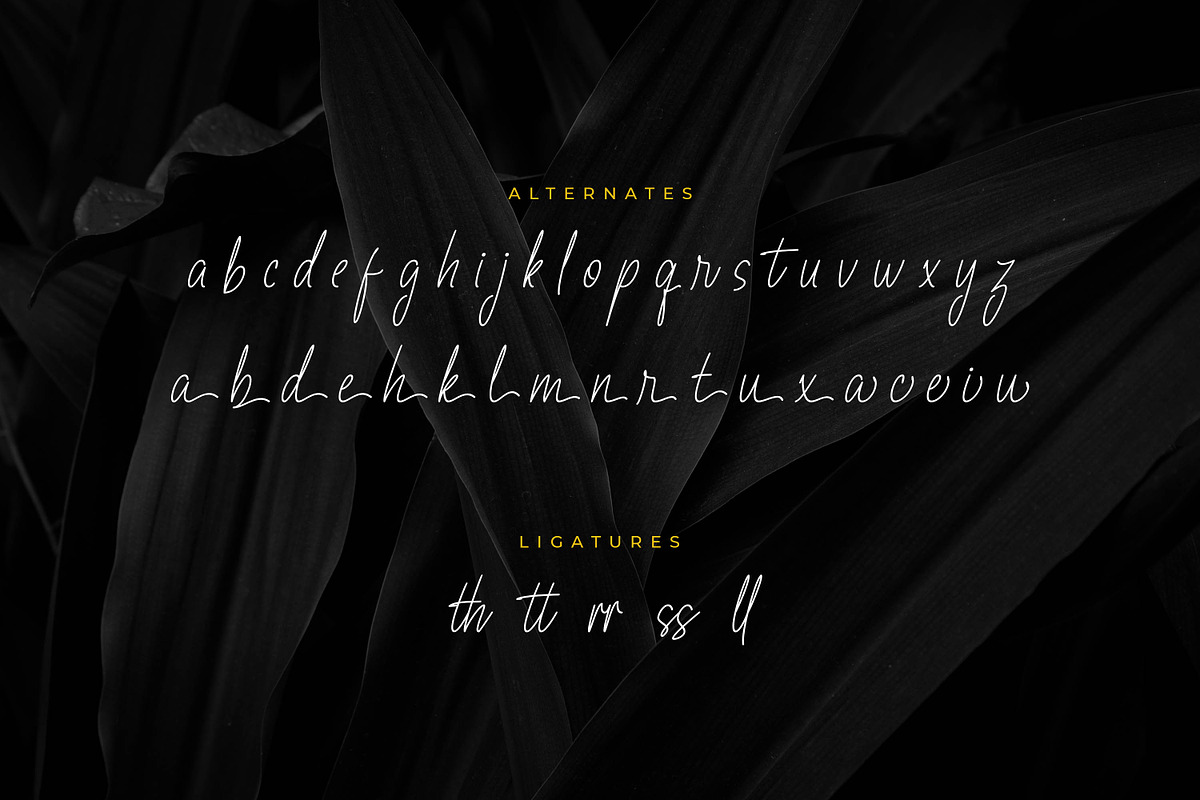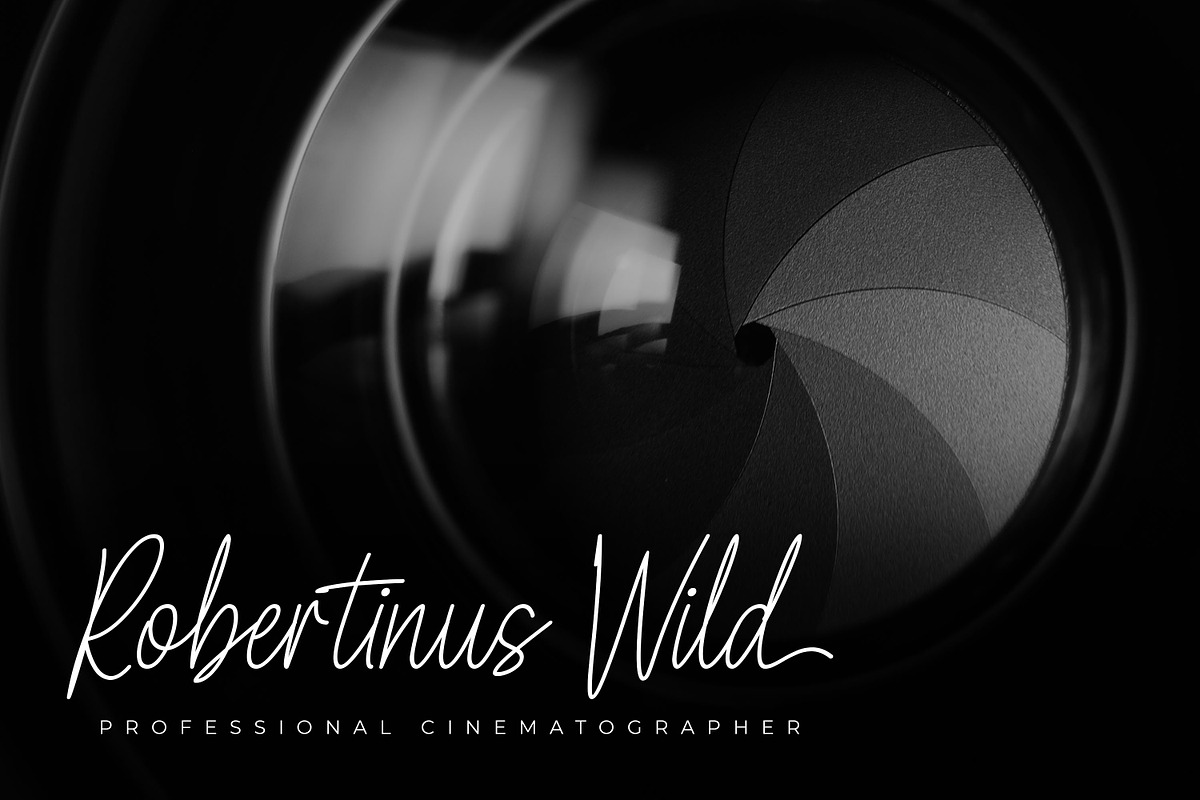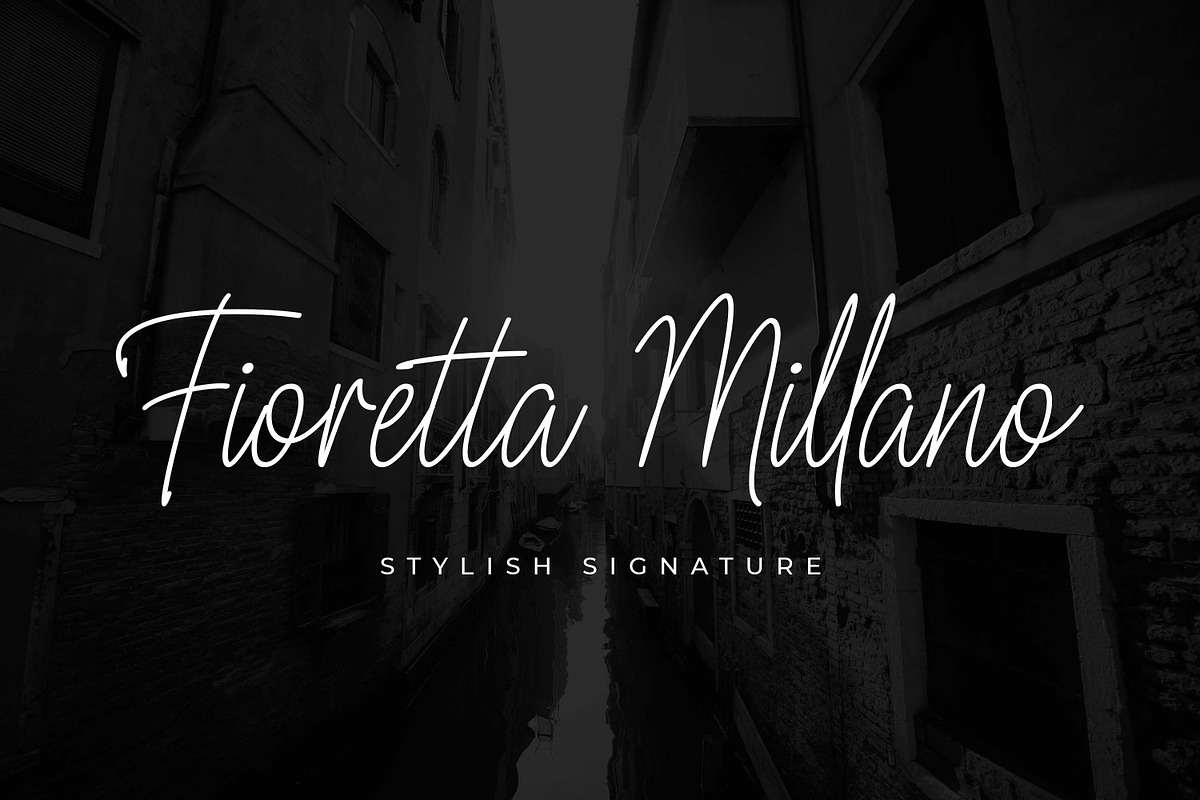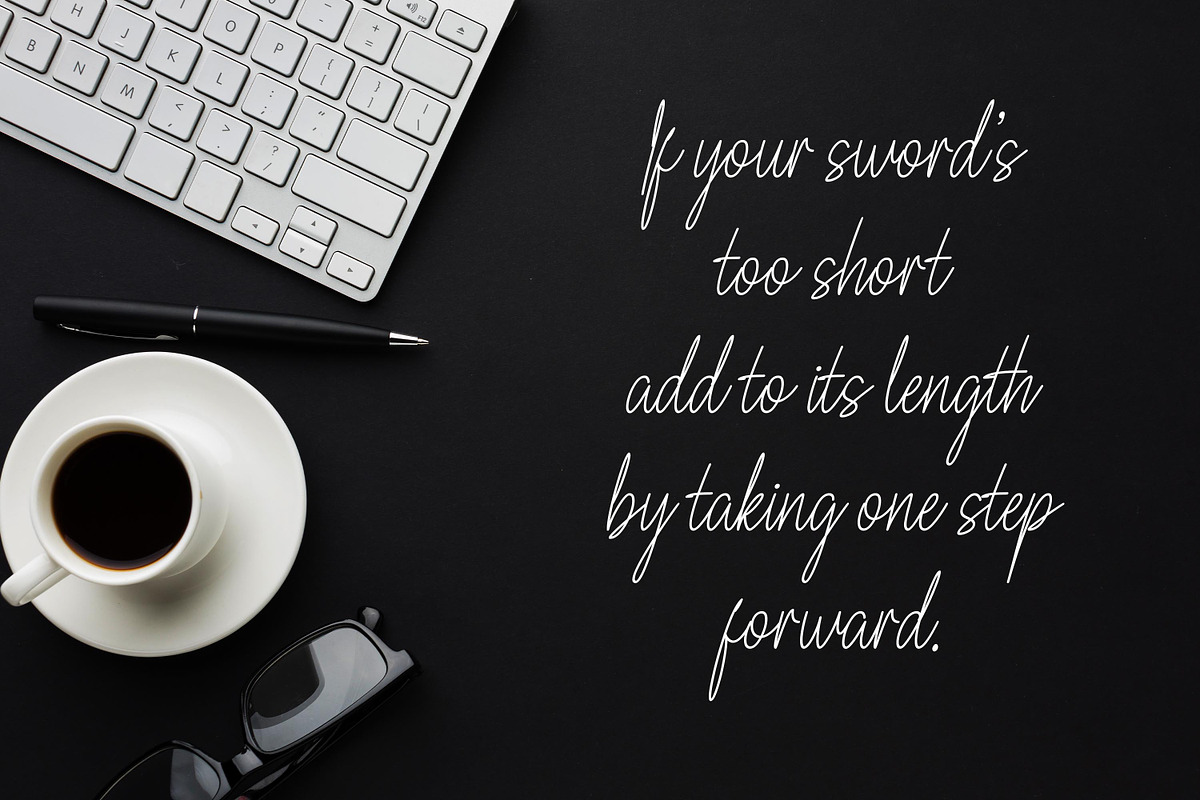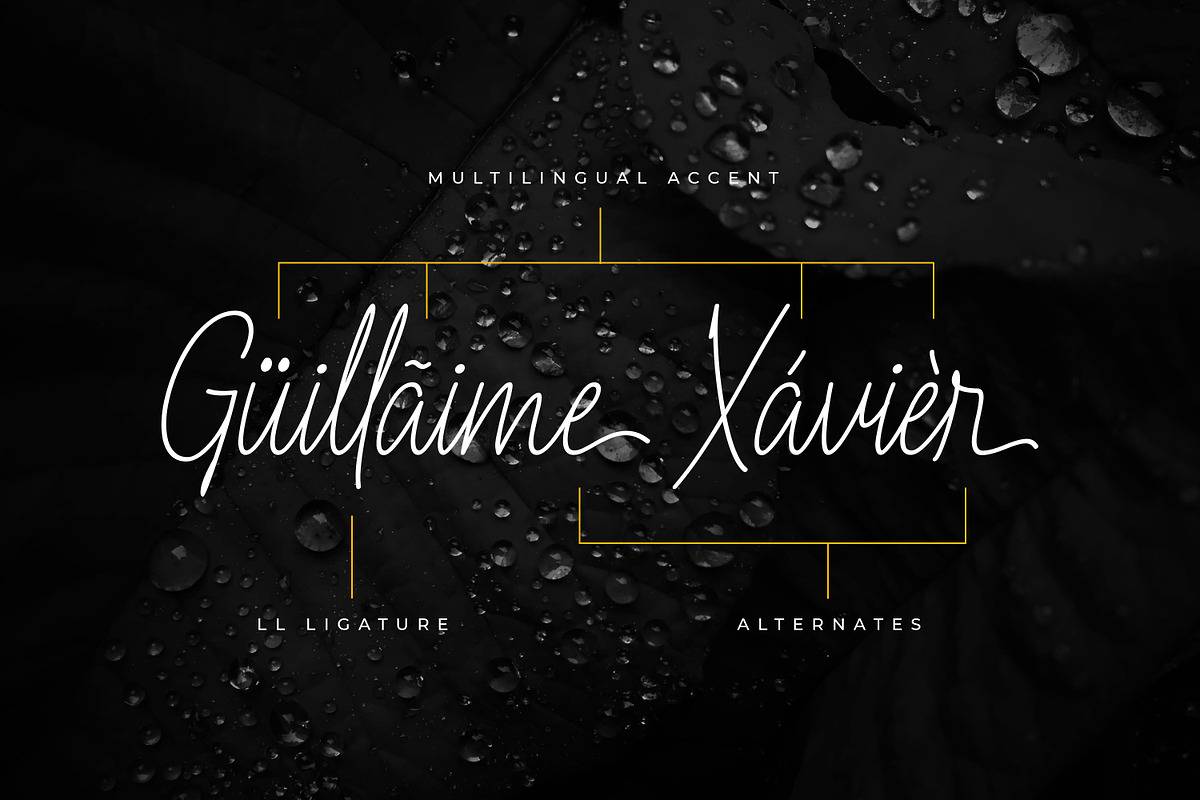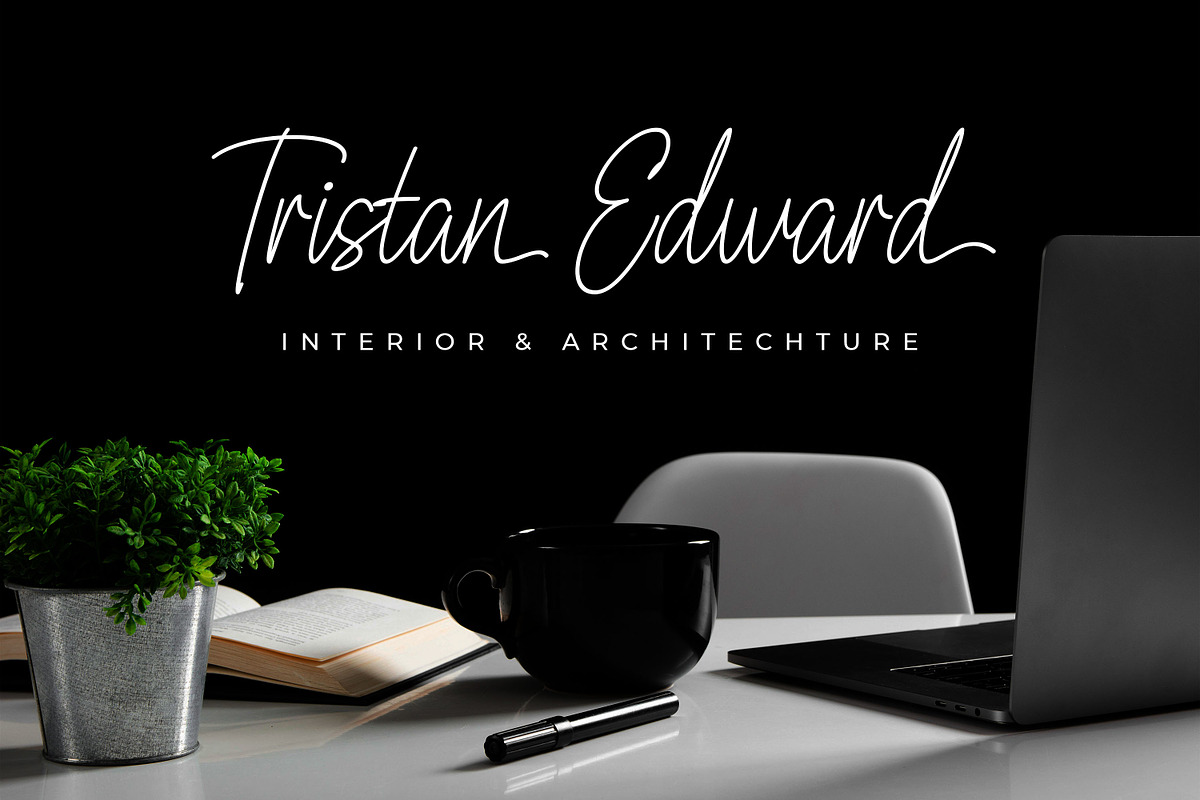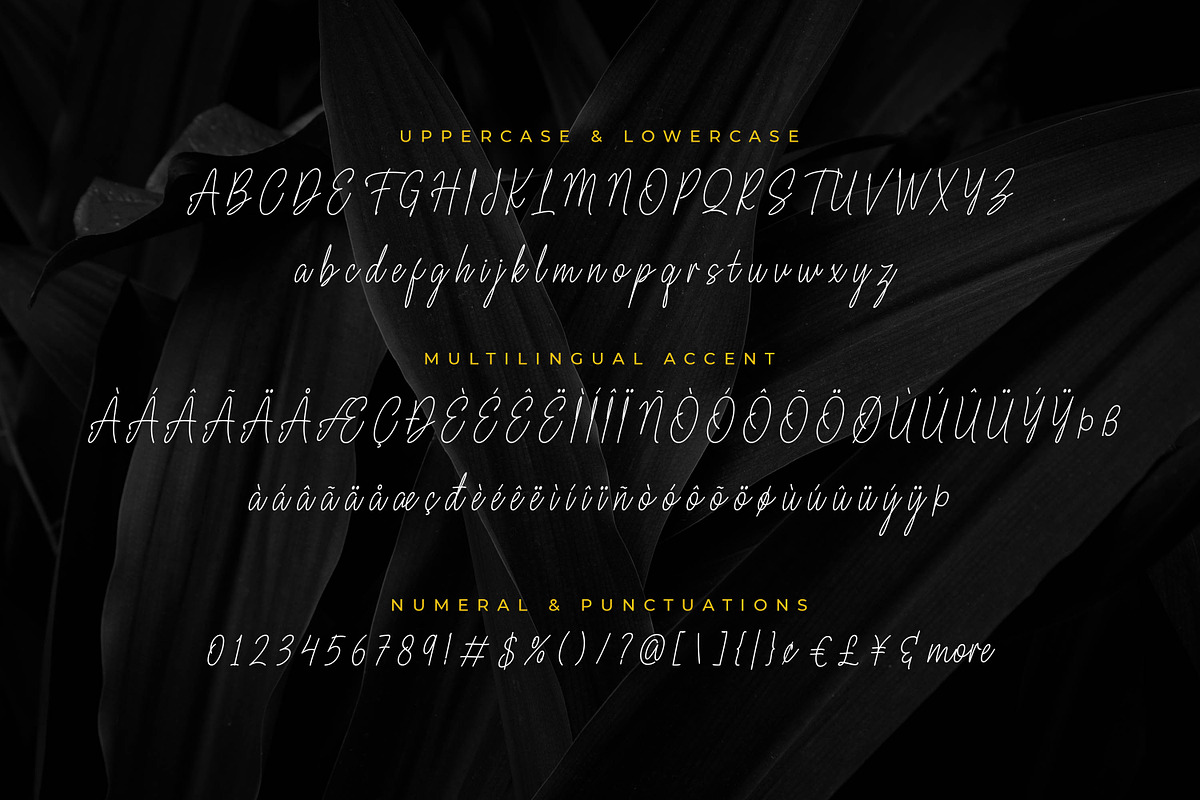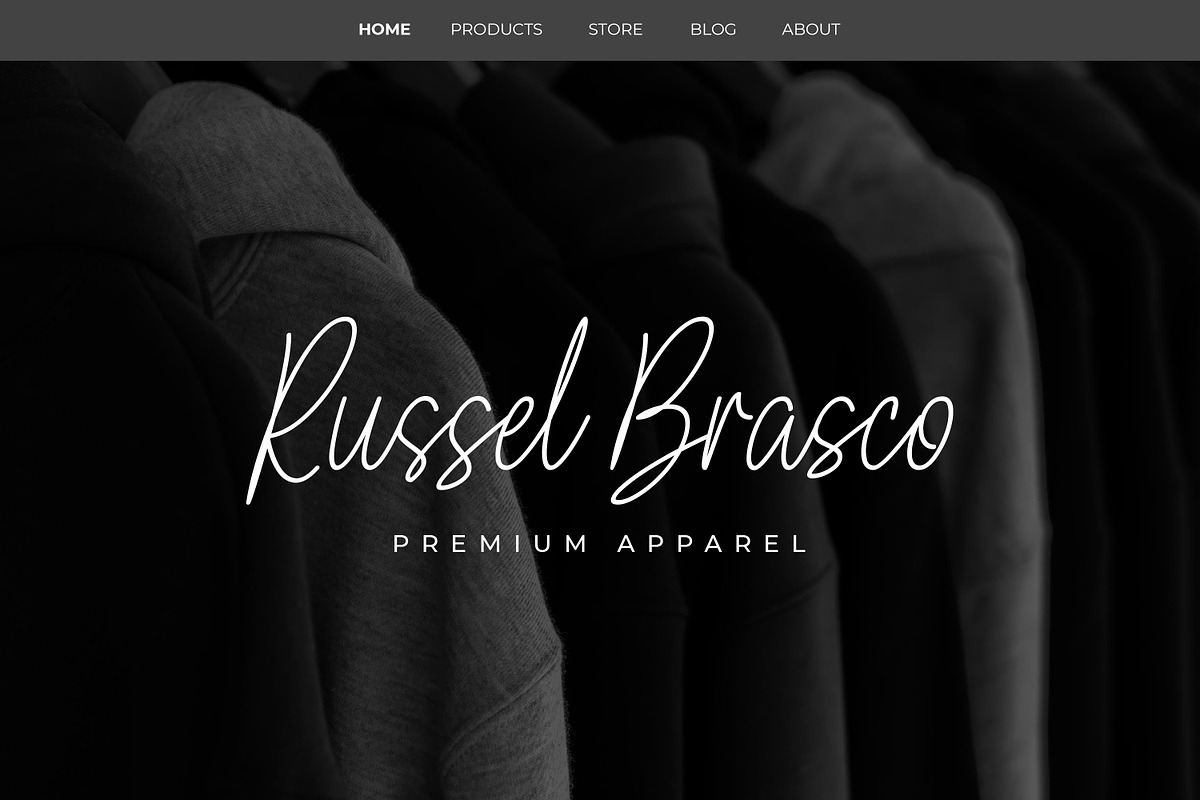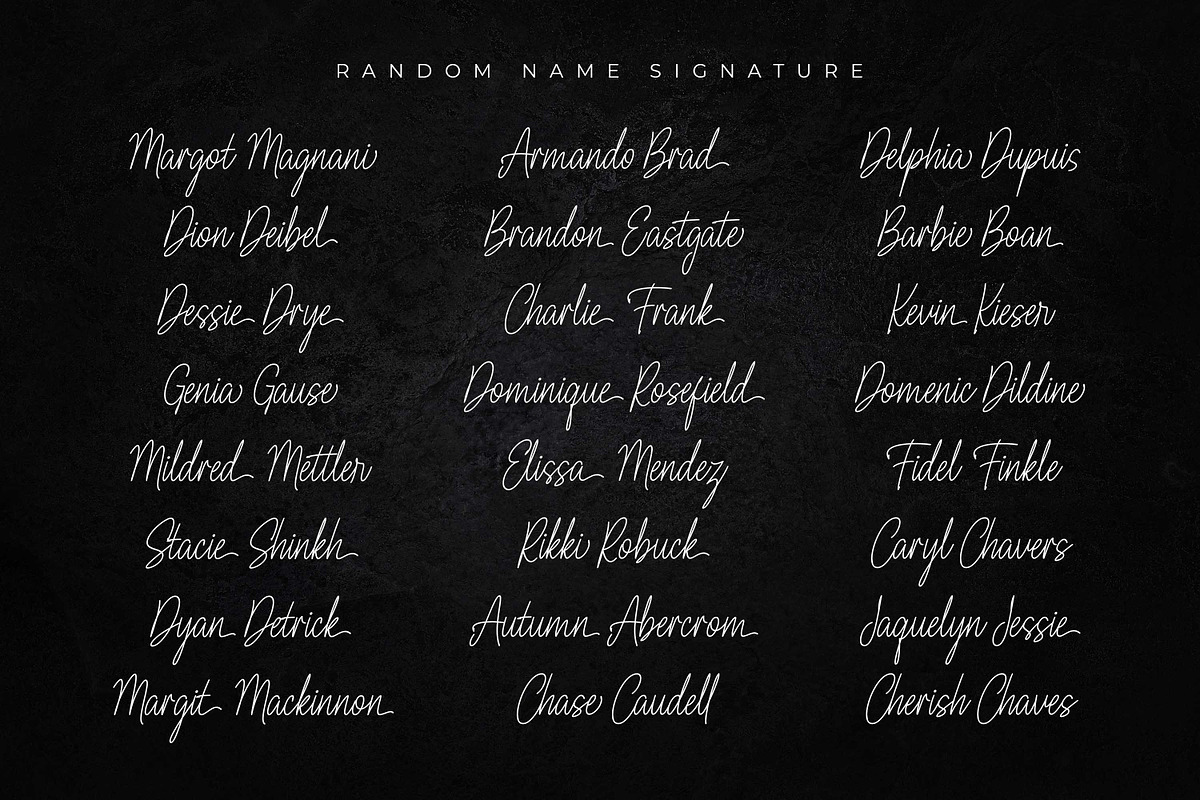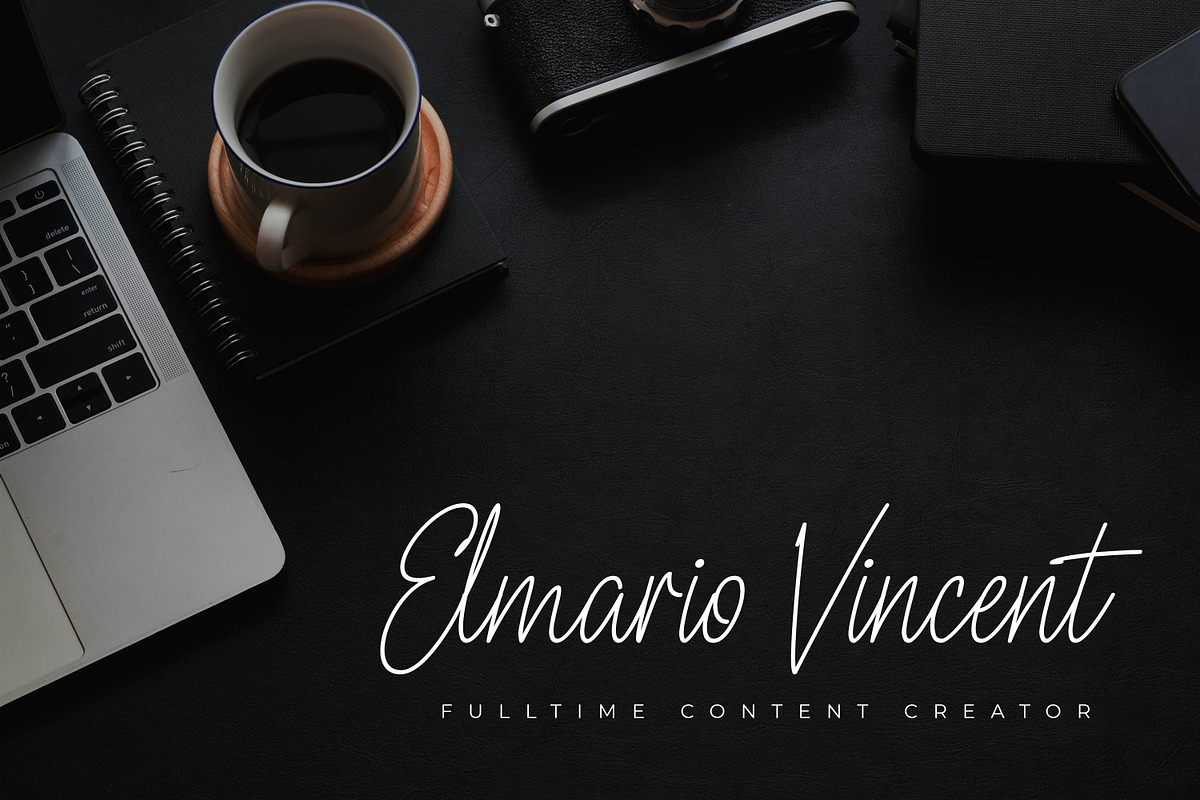
Fioretta Millano – Stylish Signature
Fioretta Millano – Stylish Signature and classy style, this font is great for your creative projects such as watermark on photography, and perfect for logos & branding, photography, invitation, watermark, advertisements, product designs, stationery, wedding designs,label, product packaging, special events or anything that need handwritting taste.